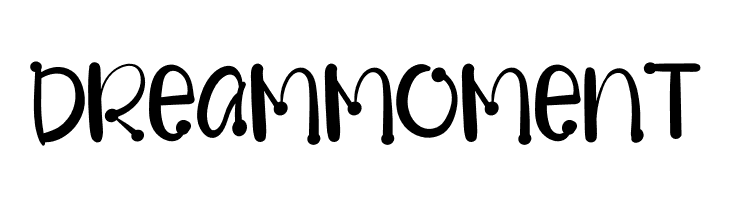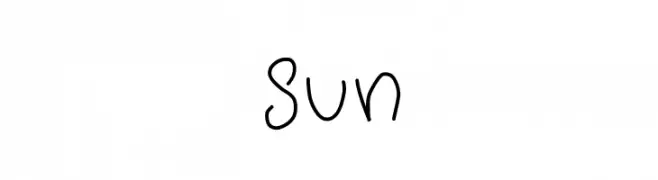
A bold, playful font with chunky letters and irregular cutouts.
A playful, handwritten font with tall, narrow letters and a whimsical style.
An elegant script font with intricate swashes and flourishes.
A bold, geometric font with a modern and industrial aesthetic.
A playful, handwritten font with tall, narrow letters and a casual style.
Whimsical pictogram font with abstract and stick-figure characters.
A bold, angular font with a geometric and edgy design.
A playful, brush-like font with a hand-drawn appearance.
A bold, left-leaning font with sharp angles and a dynamic style.
A delicate, flowing script font with elegant, continuous lines.
A decorative font with uppercase letters inside turkey silhouettes.
A bold, playful font with star-like cutouts and dynamic shapes.
A bold, geometric font with a futuristic and digital aesthetic.
A whimsical and playful font with decorative curls and swirls.
A bold, italicized font filled with a decorative star pattern.
A bold, decorative font with crow silhouettes for each letter.
A bold, decorative font with a 3D effect and artistic flair.
A bold, modern font with a unique halftone effect and strong visual impact.
A bold, italicized sans-serif font with high contrast and a modern style.
A decorative cursive font with elegant loops and swashes.
A playful, bold font with decorative curls and swirls, perfect for festive designs.
A distressed, grunge-style handwritten script font with a bold, textured appearance.
A modern, clean sans-serif font with balanced spacing and consistent stroke width.
A bold, brush-style font with dynamic, hand-painted strokes.
A bold, dramatic font with sharp angles and smooth curves, perfect for impactful designs.
A geometric, modern font with clean lines and angular shapes.
A bold, geometric font with rounded edges, ideal for modern designs.
Playful handwritten font with a casual style.
A bold, dynamic script font with interconnected characters and a lively flow.
A bold, angular font with a futuristic and geometric design.
A classic serif font with medium contrast and elegant letterforms.
A clean, modern sans-serif font with geometric influences.